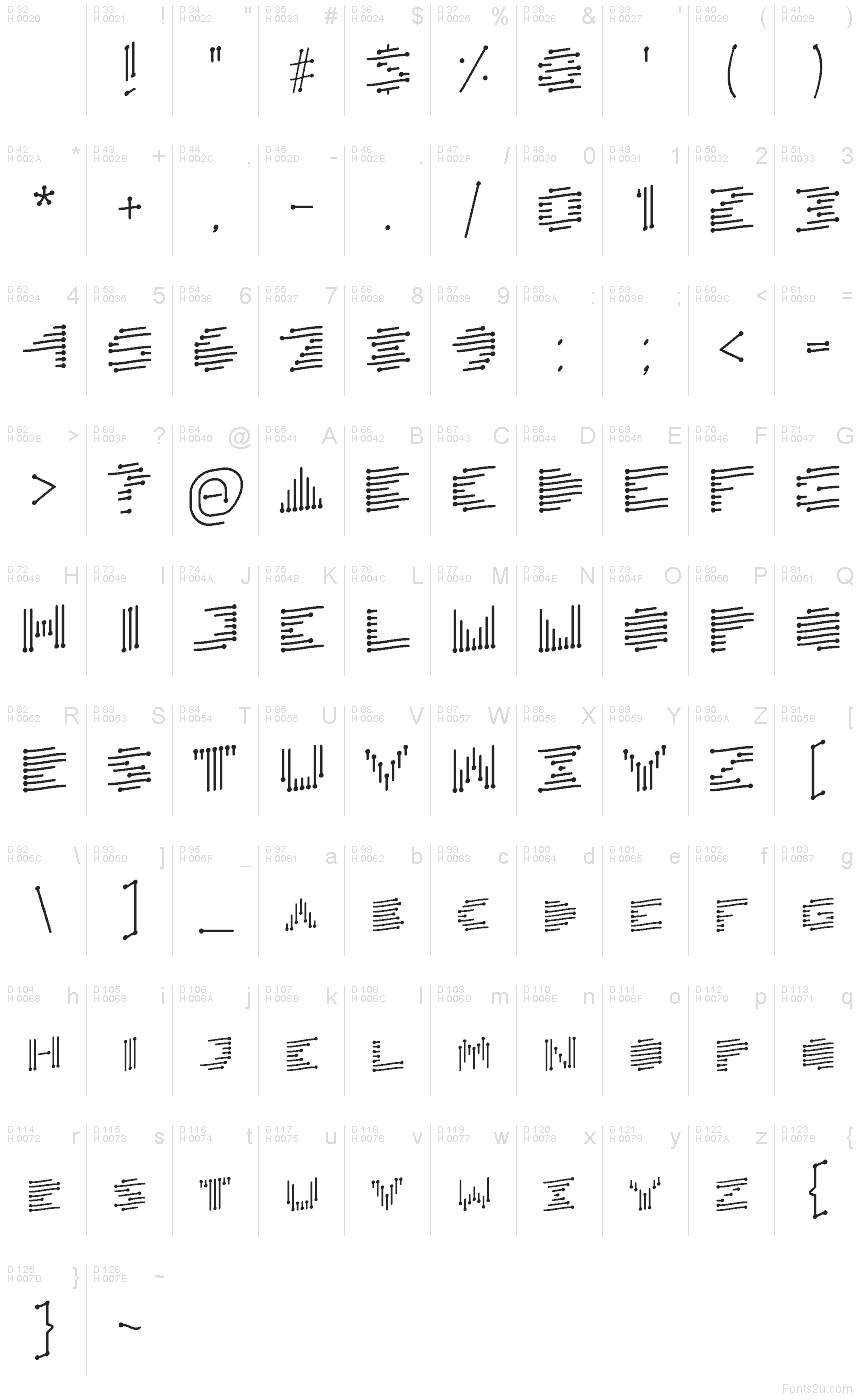
Music Volume Italic
Music Volume Italic font by Galih Nugroho is a free techno display typeface in the Music Volume family. Its defining move is letterforms composed from stacked volume bars, slanted forward like a needle jumping on a mixer. The result is punchy, rhythmic text that feels alive—crisply linear, a little jagged, and constantly in motion.
Using Music Volume Italic, headlines snap with club-energy and sleek machine vibes. It shines on music event posters, DJ flyers, album covers, streaming thumbnails, nightclub signage, and motion-graphics titles. Set it big with a touch of extra tracking to let the bars breathe, and pair it with a clean geometric sans for body copy.